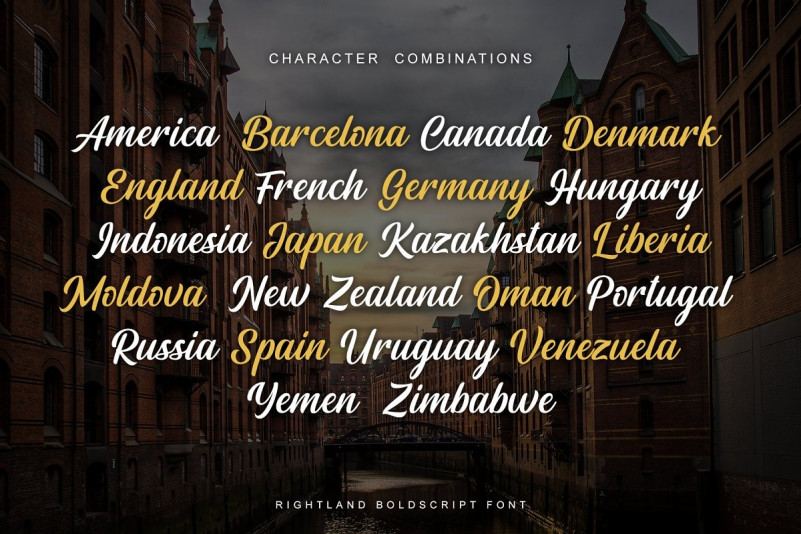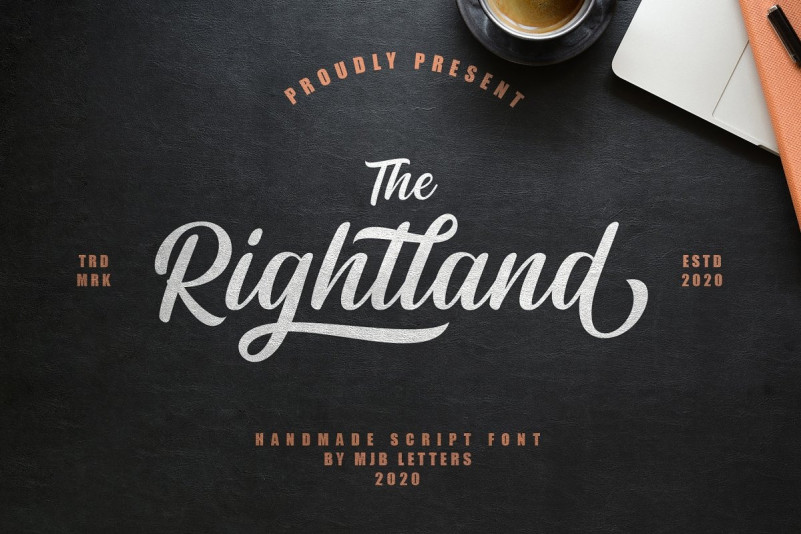
Rightland Bold Script Font
Rightland Modern Bold Script – Free Demo
Say Hello Guy’s. Thank you for looking Rightland Font. It is design and shared by MJB Letters. This is a bold script font with script styles with natural and strong characters that are created using calligraphy brushes and then trace them neatly until they get consistent results. It’s a modern bold script font, which is very strong and clean, has elegant swashes in each curve that can be applied to various design needs such as logos, posters, branding packaging and others. This font supports Multi-Language ​​and OpenType features and it is PUA encoded.